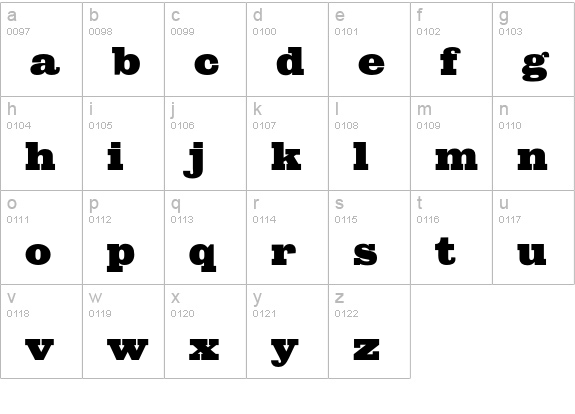
Giza-SevenSeven Font Details
Introducing Giza-SevenSeven, a modern and sleek font that exudes elegance and sophistication. With its clean lines and sharp edges, this font is perfect for creating eye-catching designs that stand out from the crowd. Giza-SevenSeven is versatile and can be used for a variety of projects, from branding to editorial design. What sets Giza-SevenSeven apart is that it is not only stylish and professional but also completely free to download. Yes, that's right - you can get your hands on this beautiful font at no cost at FontsMarket.com. So why wait? Add Giza-SevenSeven to your font collection today and let your creativity soar.